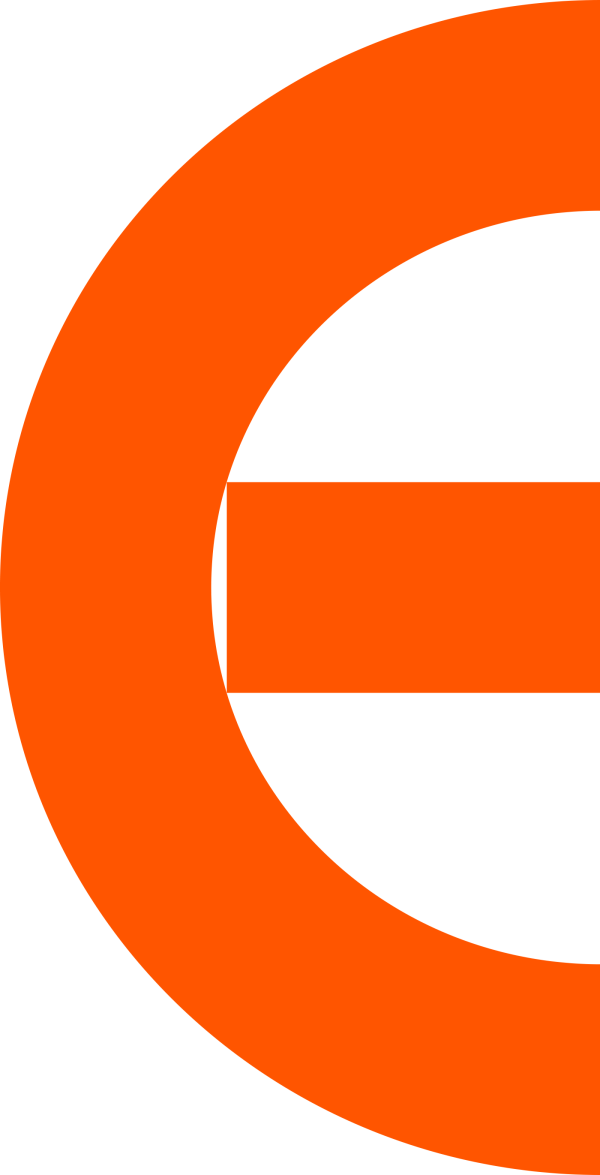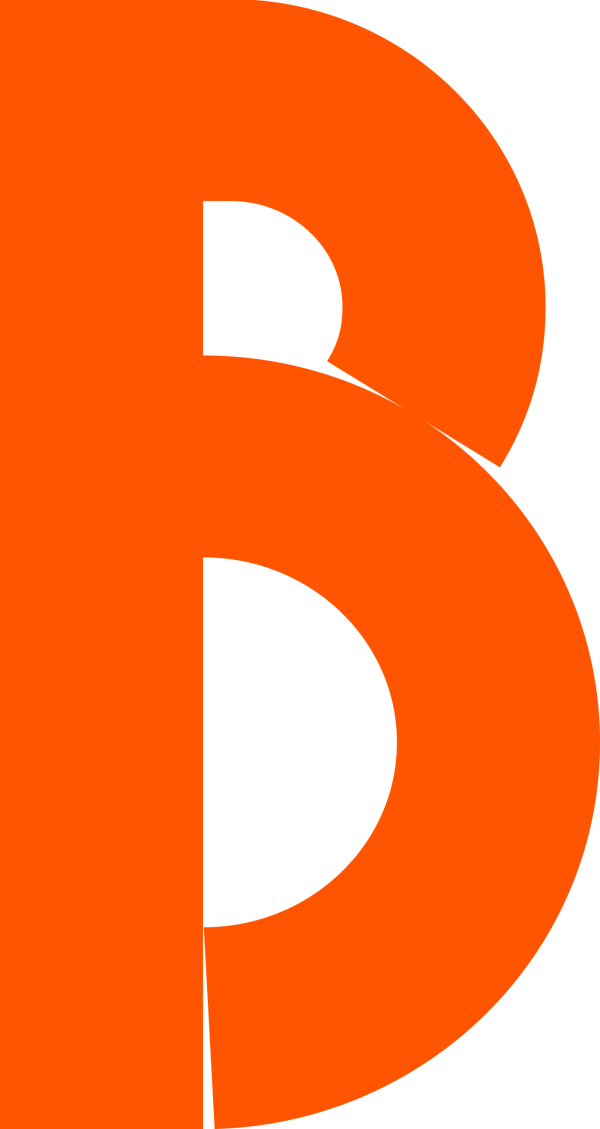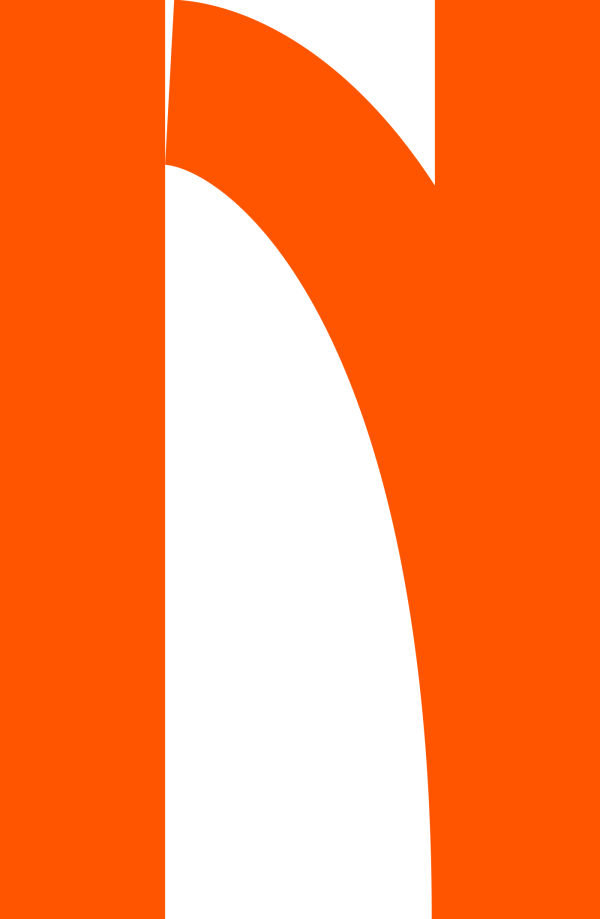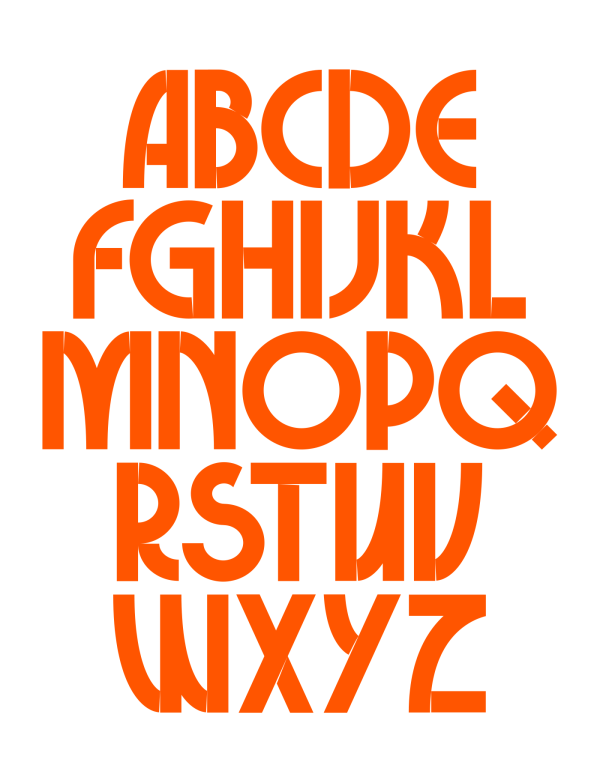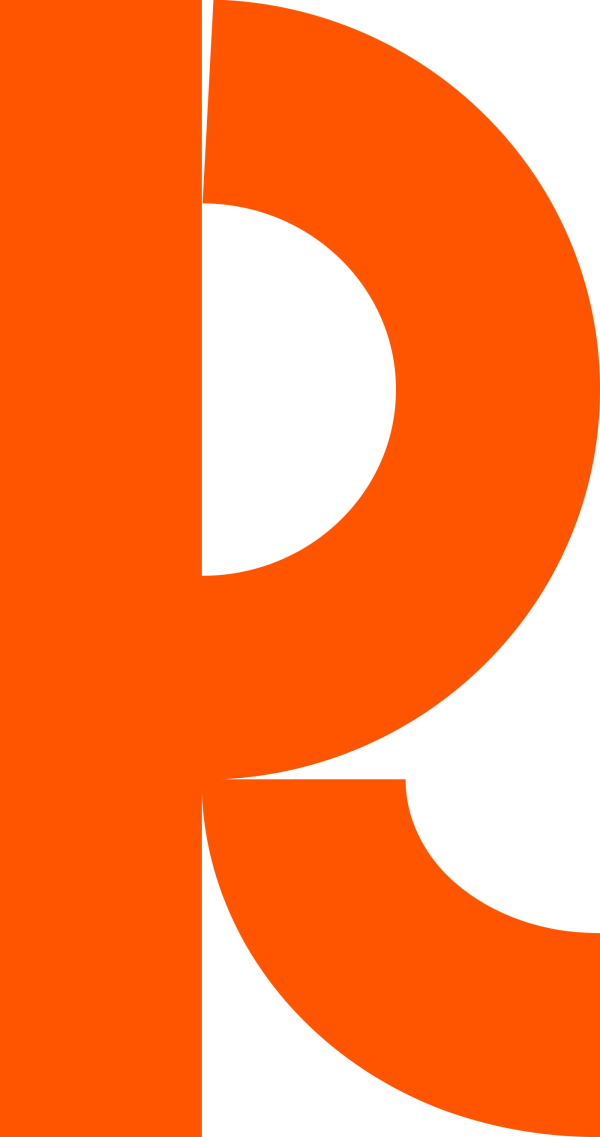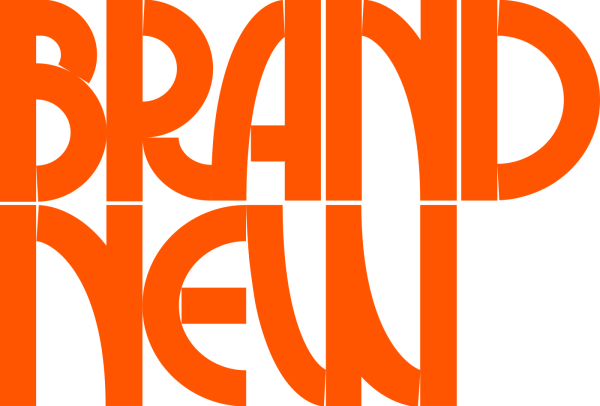
Brand New
A fruity typeface, infused with the aromas of the gently settling fair weather, where grey slowly fades to make way for warm, amber hues.
Designer: Patrick Seymour
Publisher: Patrick Seymour